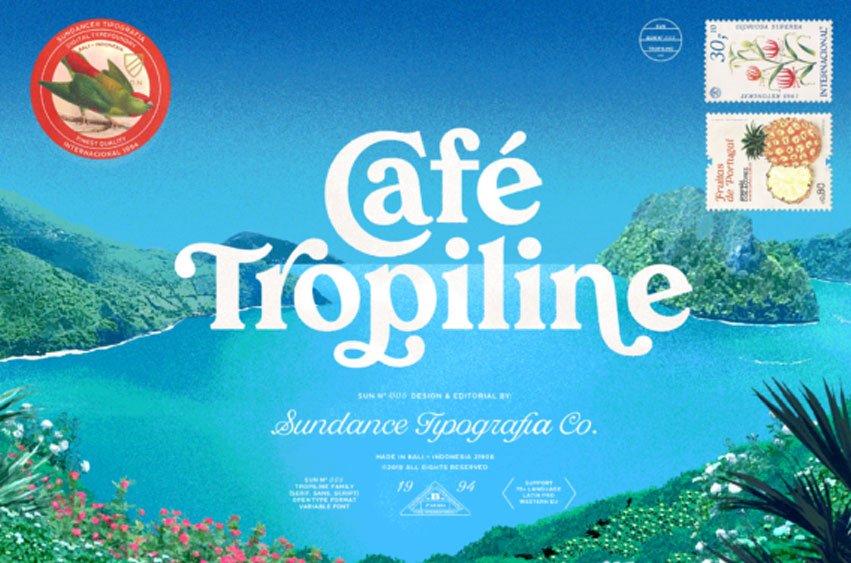
Tropiline Family Font
Tropiline Family Font is a stunning font family with a tropical vibe.
Fall in love with its retro charm, and turn any creative project into a stand out.